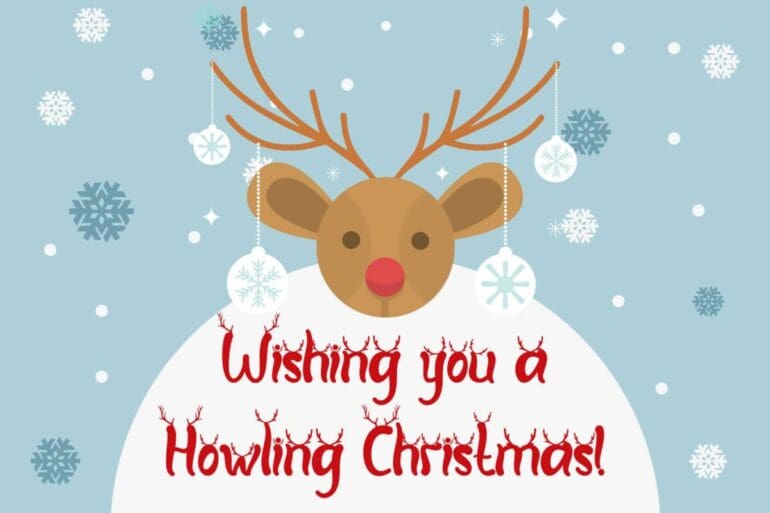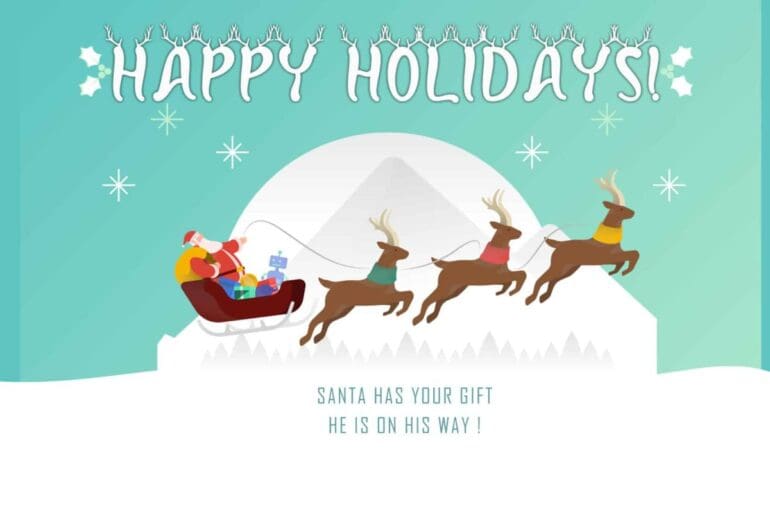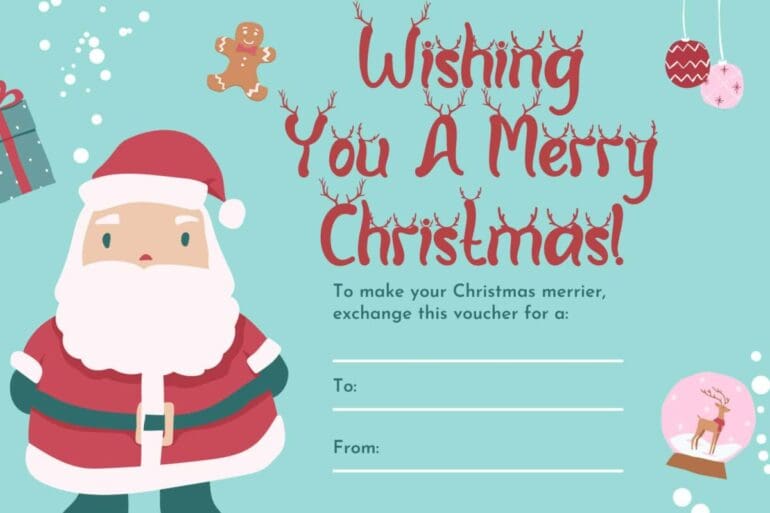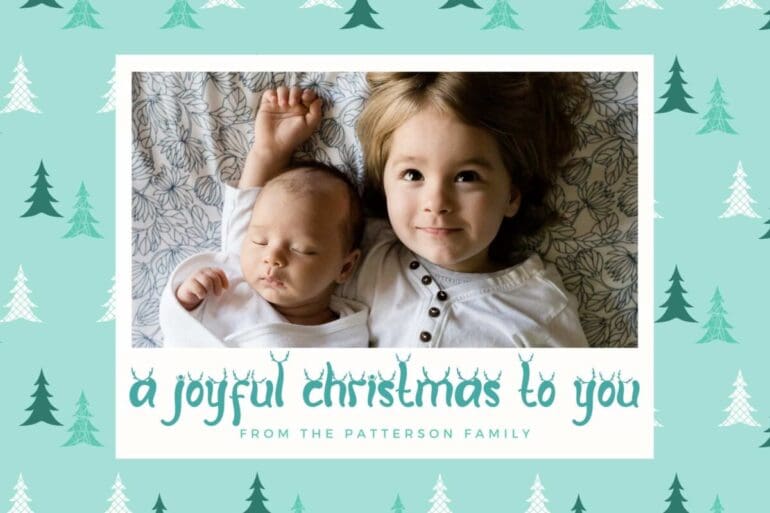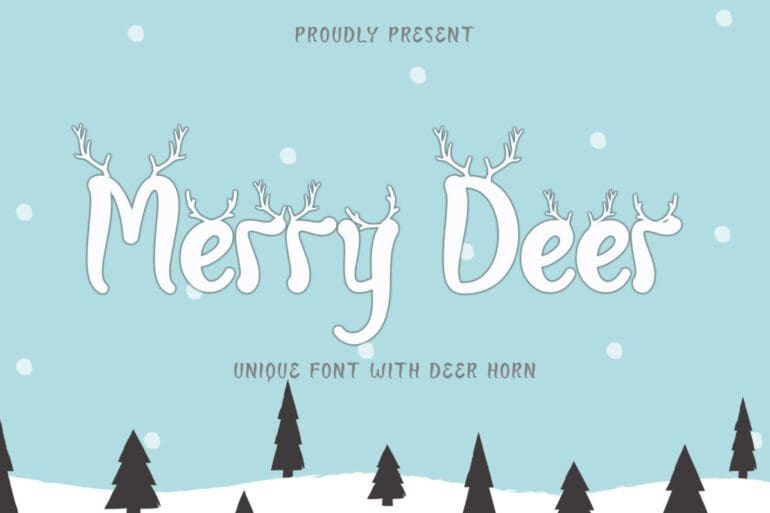
Merry Deer Font
Merry Deer is a special display font with a unique shape. This font is very easy to use for all your work needs because it has been specially designed. This font is perfect for Halloween, movie titles, horror, comics and more. “Witch Pumpkin” comes with ligatures, numerals and punctuations, and multilingual support.